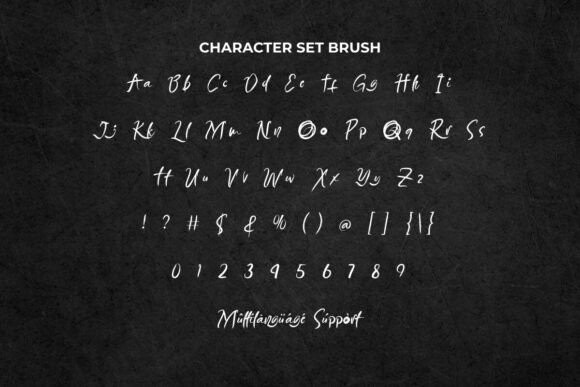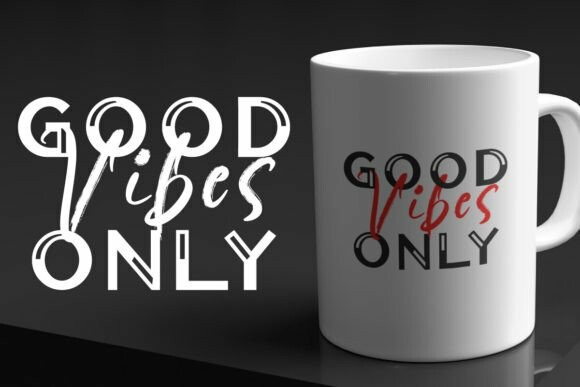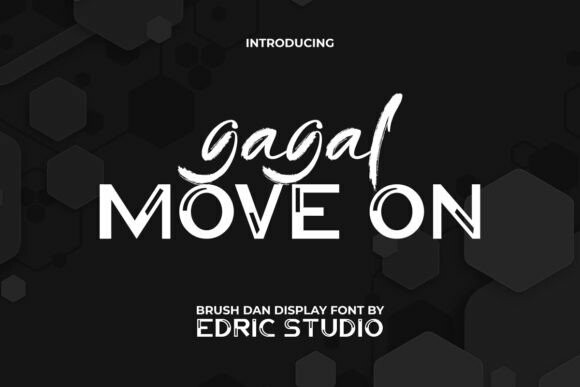
Gagal Move On Font
Designer: EdricStudio
Gagal Move on Font is an excellent font duo with two awesome different styles, Textured Brush & Serif Display created by Edric Studio. This font takes on a dark & futuristic look to give it a surprising mix! It will be perfect for any industry, such as accessories, barbers, clothing brands, ceramic crafts, coffee houses, event organizers, fashion designers, furniture, music, photography, printing, publishing, restaurants, tailors, and much more.